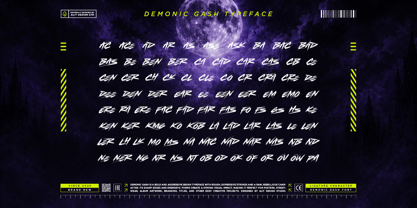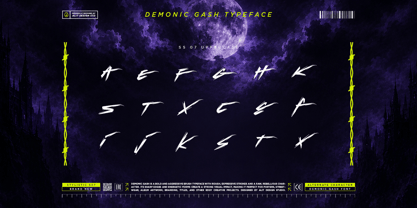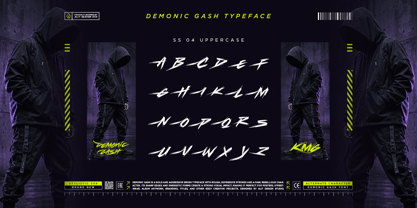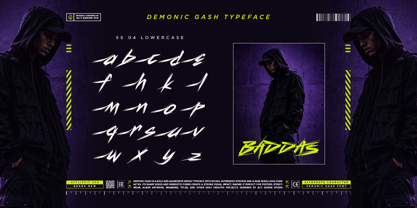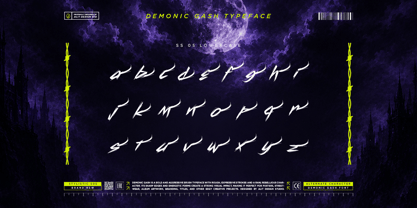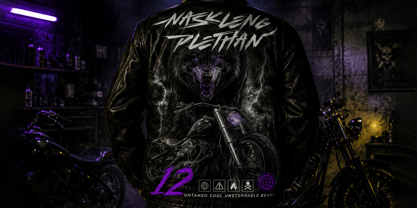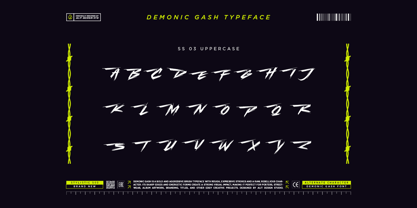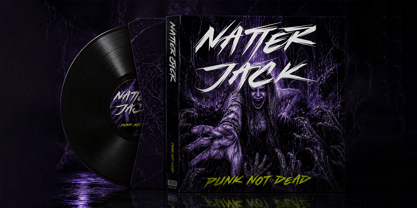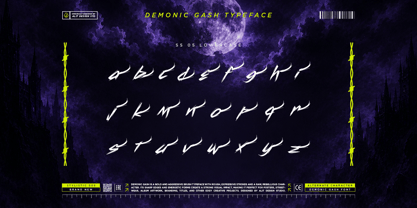
Demonic Gash
Demonic Gash – Aggressive Brush Typeface
Unleash raw, untamed energy with Demonic Gash, a bold and aggressive brush typeface designed to make a commanding statement. Crafted with rough, expressive strokes and a rebellious character, this font captures the dark and intimidating essence of dry brushwork. Every letter features sharp edges and chaotic textures, leaving behind a visceral, high-impact visual presence that demands attention.
Perfect for designs that need to break the rules, Demonic Gash thrives in the gritty and the bold. Whether you are designing underground streetwear, heavy metal or punk album artwork, spine-chilling horror movie posters, or edgy branding, this typeface delivers an ominous and forceful atmosphere.
To give you complete creative control, Demonic Gash is packed with an extensive character set. It features 968 glyphs, including a massive collection of stylistic alternates and ligatures, allowing you to customize your typography and create custom-looking, hand-painted lettering seamlessly.
Perfect for:
• Streetwear and apparel design (t-shirts, leather jackets, hoodies)
• Horror, thriller, and action movie titles
• Punk, metal, and alternative music album covers
• Extreme sports branding and event posters
• Edgy social media campaigns and typographic quotes
Key Features:
• Total of 968 Glyphs: A massive set for ultimate typographic flexibility.
• Uppercase & Lowercase: Distinct characters with a cohesive rough texture.
• Extensive Alternates: Stylistic Sets (SS01 - SS07) to mix and match letterforms for a natural brush look.
• Rich Ligatures: Custom combinations for smooth, overlapping brush strokes.
• Numerals & Punctuation: Complete standard and alternate symbol support.
• Multilingual Support: Broad language compatibility for global reach.
• PUA Encoded: Easy access to all extra characters in any design software without needing special design programs.
Embrace the chaos and give your next project a striking, relentless edge with Demonic Gash.